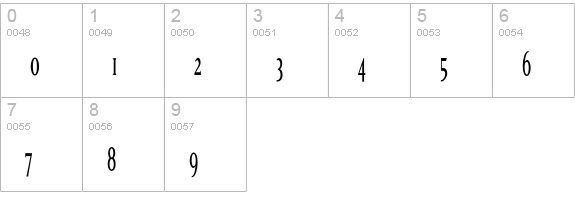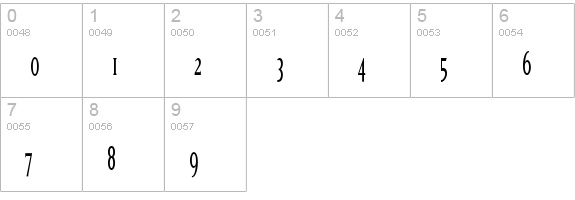
MatrixNarrowOldstyle Font Details
MatrixNarrowOldstyle font is a timeless and elegant typeface that exudes sophistication and charm. With its slender and refined letterforms, this font brings a touch of vintage flair to any design project. The distinctive narrow width of the characters gives MatrixNarrowOldstyle a sleek and modern look, making it perfect for use in headlines, logos, and other display settings. This font is a great choice for projects that require a classic and stylish aesthetic. Whether you're designing a wedding invitation, a business card, or a website header, MatrixNarrowOldstyle will add a touch of class and sophistication to your design. Best of all, MatrixNarrowOldstyle font is completely free to download at FontsMarket.com. So why wait? Add this elegant typeface to your font collection today and elevate your designs to the next level.